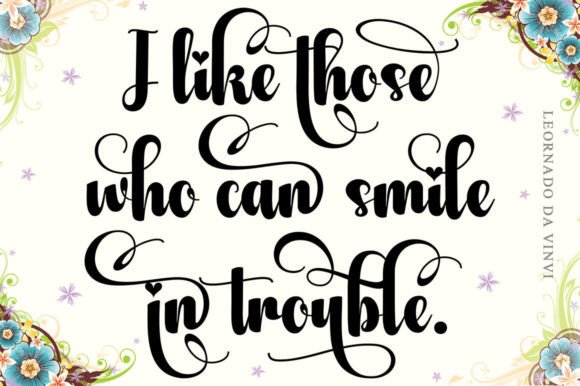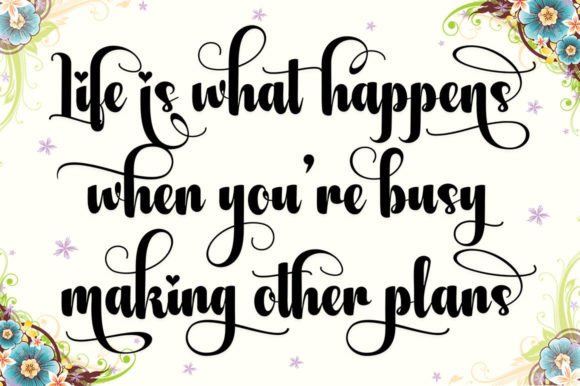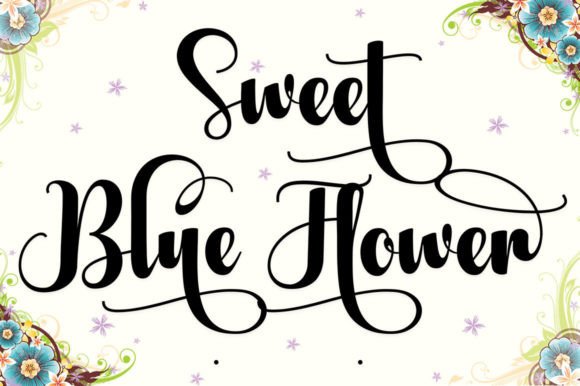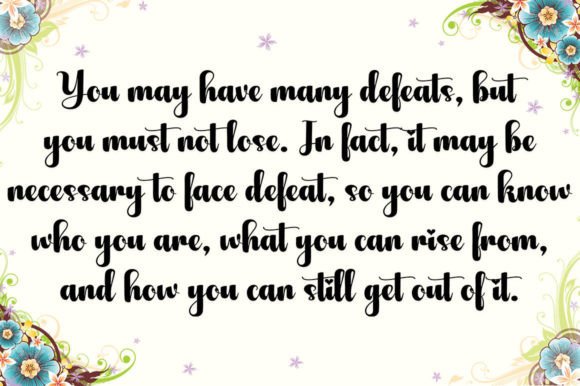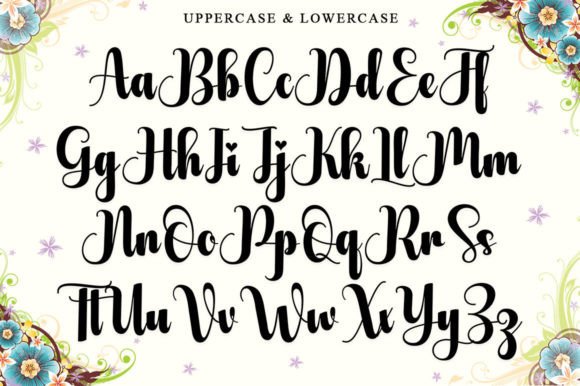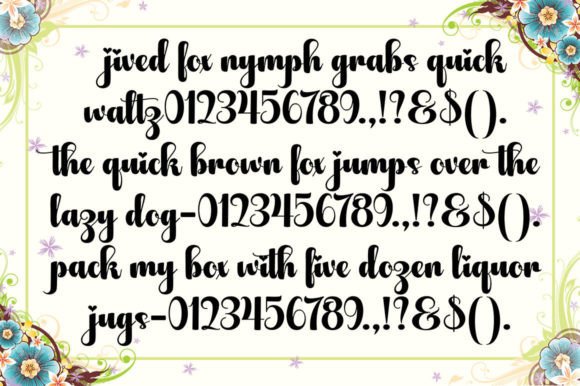
Introduction to Homlinson Font
Have you ever been working on a creative project, pouring your heart and soul into it, only to be held back by the perfect font? The one that would elevate your design from good to great? That’s where the Homlinson Font comes in – a beautiful and stylish handwritten font that will make your project ideas shine like never before.
Whether you’re a seasoned designer or just starting out, the Homlinson Font is an invaluable resource for any creative project. Its warm, romantic, and jovial vibe will add a touch of personality to your designs, making them stand out from the crowd. Plus, with its high-quality design and transparent background, you’ll have endless possibilities for customization and creativity.
Key Features of Homlinson Font
- Unique, modern design with a transparent background, allowing for seamless integration with any visual project.
- Perfect for designers who need a stylish and versatile font for their creative projects, from logos to typography.
Honest Review: Homlinson Font
As a designer, I’m always on the lookout for high-quality design resources to elevate my creative projects. The Homlinson Font caught my eye with its unique, elegant style, making it a great addition to any design arsenal.
- ✨ High-quality font with a transparent background, making it easy to use in a variety of design contexts.
- ✨ Perfect for creating beautiful, legible text in logos, headings, and body copy.
- ⚠️ Limited font sizes and styles available, which may limit its versatility in certain design projects.
- ⚠️ Not ideal for use in large blocks of text, as it may become difficult to read.
Overall, I’d say the Homlinson Font is a solid choice for designers looking for a high-quality, elegant font. While it may not be perfect for every project, its unique style and transparent background make it a valuable addition to any design resource library. And the best part? It’s available for free download, making it a great option for designers on a budget.
The Homlinson Font is ideal for a wide range of creative projects, including logos, business cards, brochures, and presentations. It’s a great addition to any design toolkit and can help elevate your designs to the next level.